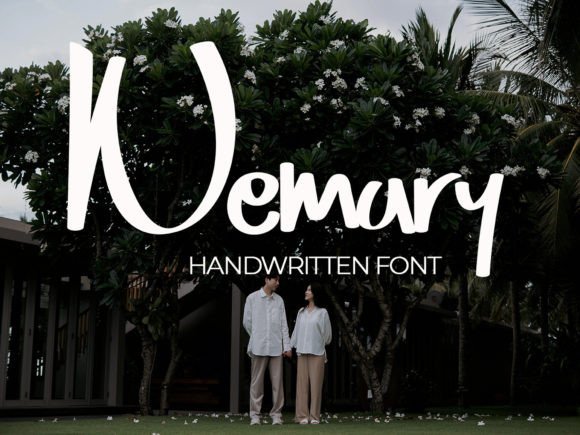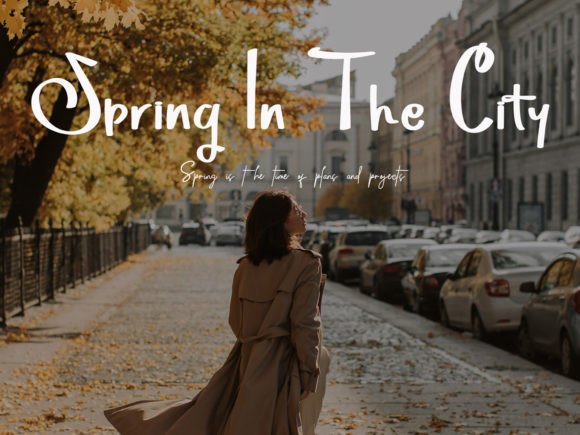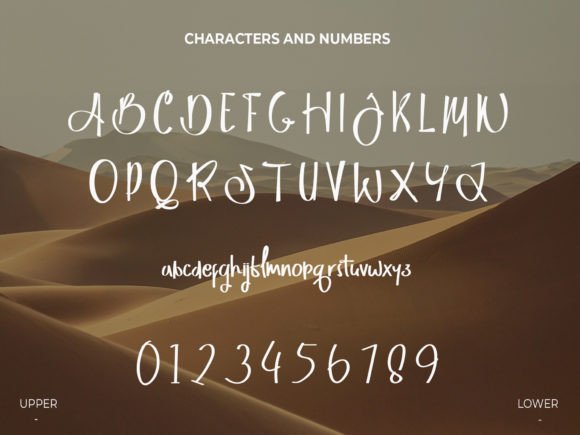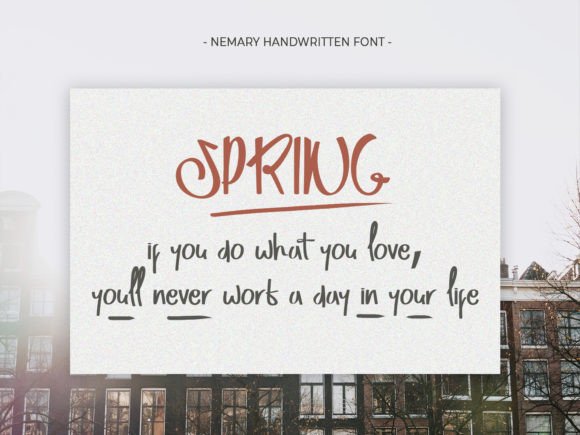
Nemary Font
About Nemary Font
The Nemary Font download is a stunning handwritten typeface that brings elegance, simplicity, and beauty together in one seamless design. This font is perfect for designers who want a refined and graceful touch in their creative work. Whether you’re designing a logo, creating content for social media, or crafting an eye-catching magazine layout, Nemary provides just the right balance of sophistication and readability.
A Touch of Elegance in Every Letter
Each character in the Nemary Font download flows naturally, with soft curves and clean strokes that make it ideal for both digital and print projects. The subtle charm of its handwritten style adds a personal and warm feel to your work without sacrificing professionalism.
Nemary is perfect for:
• Elegant logo design
• Editorial layouts and magazine titles
• Fashion lookbooks and beauty brochures
• Wedding invitations and stationery
• Instagram quotes and social media branding
Designed for Versatility
No matter the occasion, the Nemary Font download adapts easily to your needs. Its smooth structure ensures that your designs remain readable while still conveying a sense of artistry and elegance.
Font features include:
• Clean, elegant handwritten style
• Smooth curves and balanced letterforms
Whether you’re designing for a high-end brand or a personal blog, Nemary helps your message stand out beautifully.
Elevate Your Design Projects
With the Nemary Font download, you’ll gain a powerful asset for your font library. It offers a timeless handwritten style that suits both modern and classic design themes. From minimalist branding to artistic invitations, this font is a choice that adds charm and without overwhelming your layout.